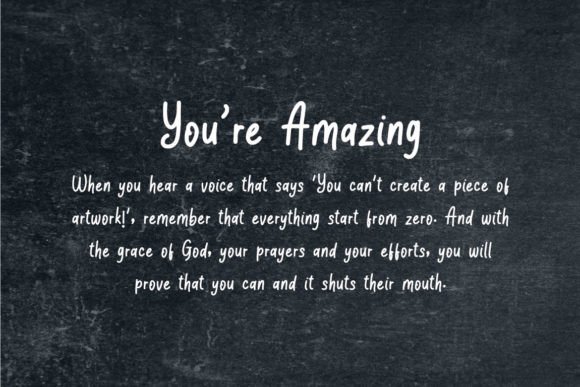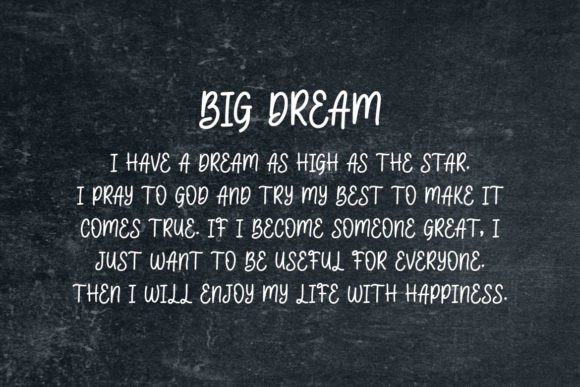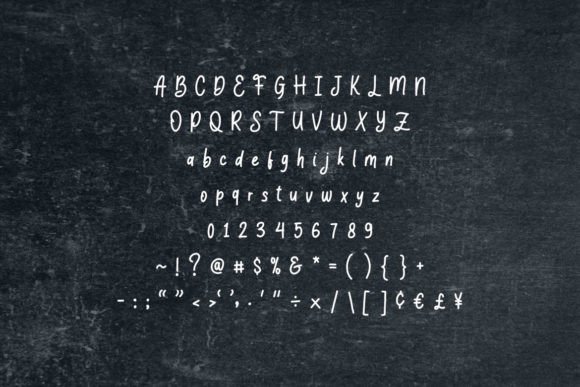
Introducing Beast Burger Font: The Ultimate Quirky Handwritten Font
Are you tired of using the same old boring fonts in your creative projects? Look no further! Beast Burger Font is here to add a dash of fun and quirkiness to your designs. This handwritten font is perfect for designers, crafters, and anyone looking to make their projects stand out from the crowd.
What is Beast Burger Font?
Beast Burger Font is a unique and playful handwritten font that is sure to capture the attention of your audience. With its irregular strokes and charming imperfections, this font exudes a sense of personality and whimsy. Whether you’re working on a branding project, a craft tutorial, or a social media graphic, Beast Burger Font is the perfect choice to add a touch of humor and friendliness.
Key Features of Beast Burger Font
• Handwritten style: Beast Burger Font is a genuine handwritten font, giving it a personal and relatable feel.
• Quirky and playful: The font’s irregular strokes and imperfections add a dash of quirkiness and humor.
• Highly versatile: Beast Burger Font can be used in a variety of creative projects, from branding and advertising to crafting and DIY tutorials.
• Easy to read: Despite its playful nature, Beast Burger Font is surprisingly easy to read, making it perfect for body text and headlines.
How to Use Beast Burger Font in Your Creative Projects
Beast Burger Font is incredibly easy to use and can be incorporated into a wide range of creative projects. Here are a few ideas to get you started:
• Branding and logos: Use Beast Burger Font to create a unique and memorable logo for your business or brand.
• Craft tutorials: Add a touch of personality to your craft tutorials and patterns with Beast Burger Font.
• Social media graphics: Use Beast Burger Font to create eye-catching social media graphics that will help your posts stand out.
• Invitations and party decor: Beast Burger Font is perfect for creating playful and fun invitations and party decor.
Why Choose Beast Burger Font?
With so many fonts to choose from, why should you choose Beast Burger Font? Here are just a few reasons:
• Uniqueness: Beast Burger Font is a one-of-a-kind font that will help your projects stand out from the crowd.
• Personality: This font has a genuine personality that will shine through in your designs.
• Easy to use: Beast Burger Font is incredibly easy to use and can be incorporated into a wide range of creative projects.
In conclusion, Beast Burger Font is a fun and quirky handwritten font that is perfect for designers, crafters, and anyone looking to add a touch of personality to their creative projects. With its irregular strokes and charming imperfections, this font is sure to capture the attention of your audience and make your projects stand out. So why wait? Add Beast Burger Font to your creative toolkit today and start creating outstanding projects that will leave a lasting impression!